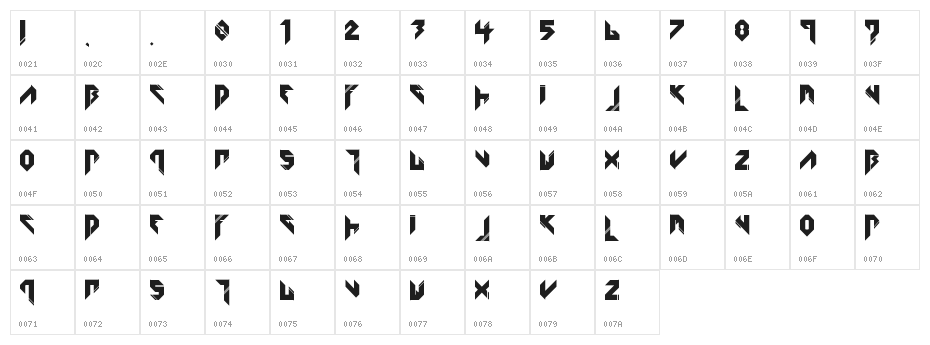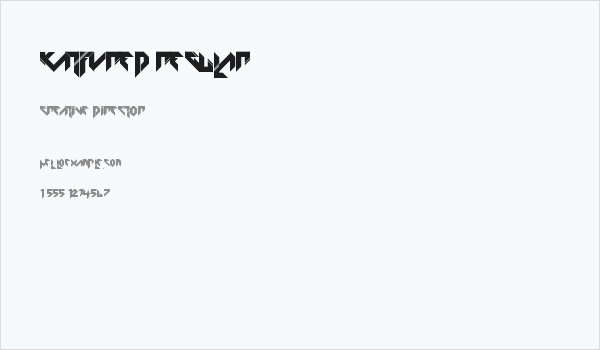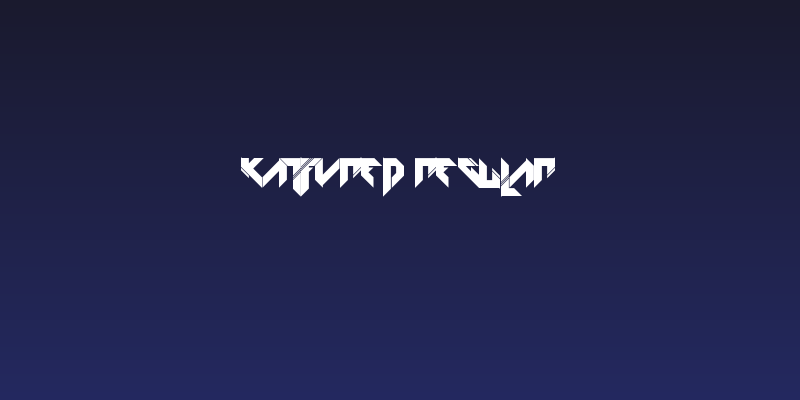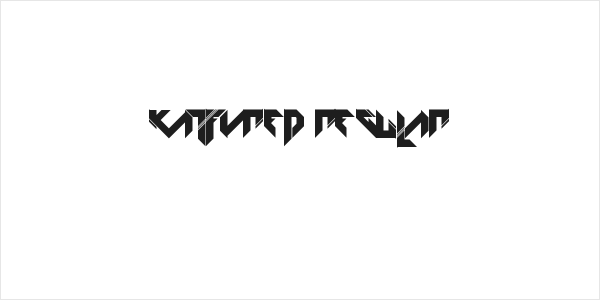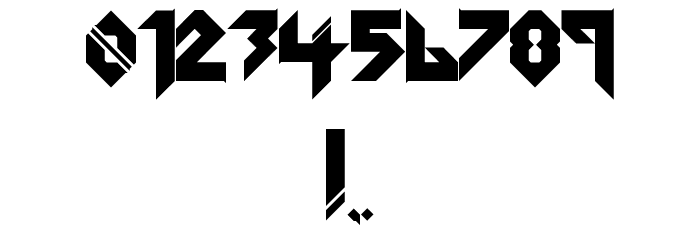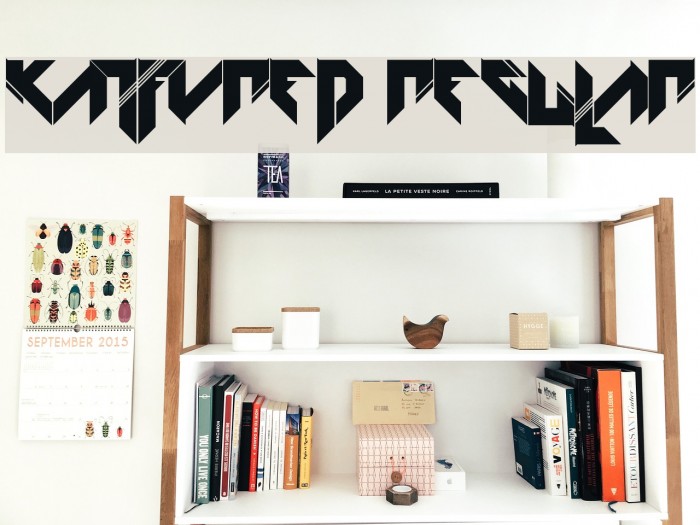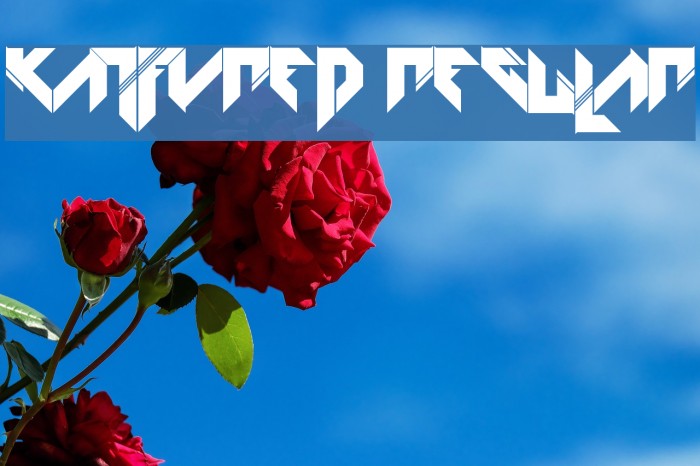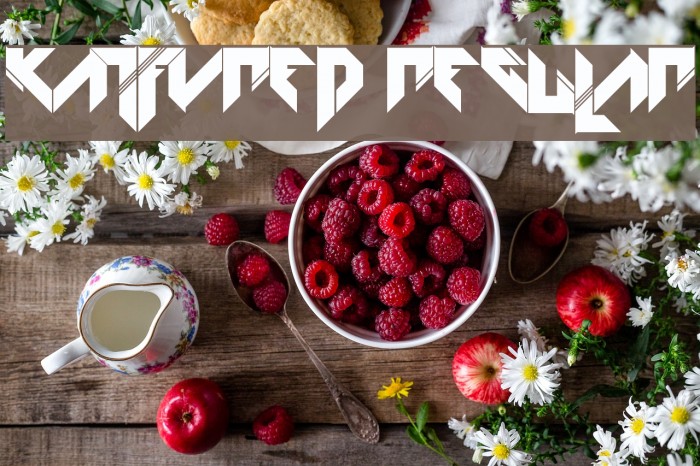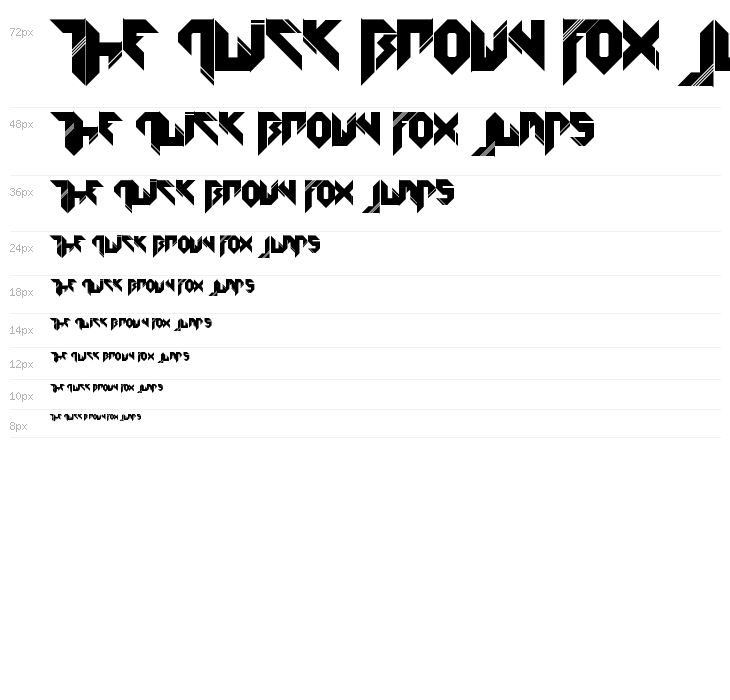
KATFYRED Regular Font
KATFYRED Regular Description
This font features a bold, geometric design with sharp angles and a futuristic aesthetic. The characters are constructed with a combination of solid and striped segments, creating a dynamic and edgy look. The uppercase and lowercase letters maintain a consistent style, emphasizing angular cuts and a sense of movement. The numerals and special characters follow the same design principles, ensuring uniformity across the typeface. This font is ideal for projects that require a modern, tech-inspired appearance.
| Proposed Projects | Ideal for tech branding, sci-fi posters, video game titles, and modern graphic design projects. |